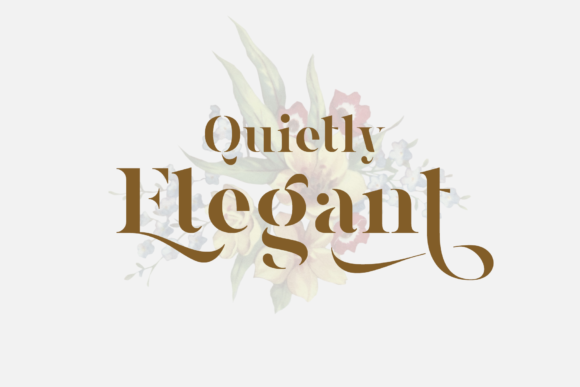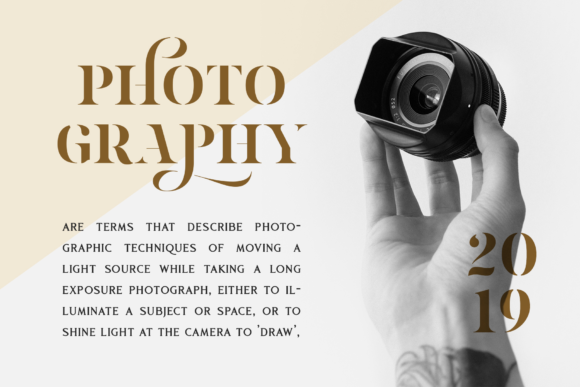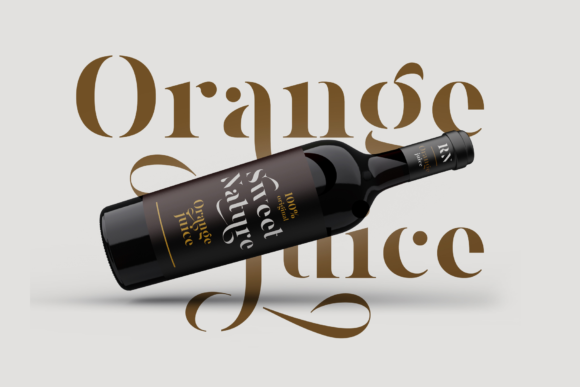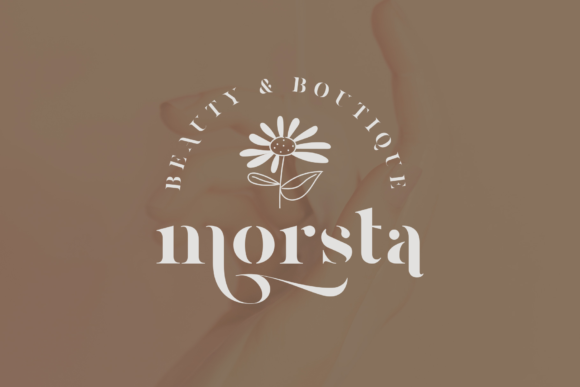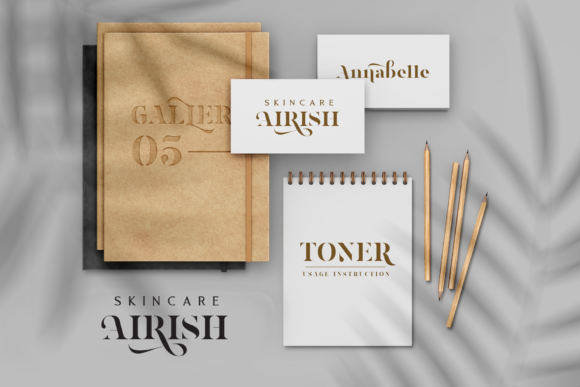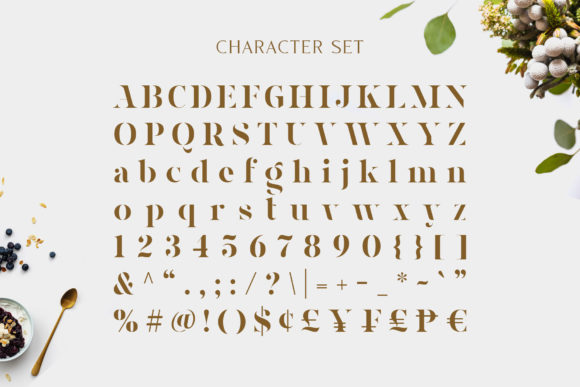
Introduction to Magnies Font
Have you ever stared at a blank canvas, feeling the pressure to create something truly remarkable, only to be inspired by the simplest of things? For designers, those moments are what drive us to push the boundaries of creativity. And what better way to spark that magic than with a stunning font that elevates any design idea to new heights?
Enter the Magnies Font – a serendipitous find that will transport your creative project from ordinary to extraordinary. With its incredibly sweet and gorgeous serif design, this font is the perfect addition to any designer’s toolkit, offering a unique charm that will leave a lasting impression.
Key Features of Magnies Font
- Unique, hand-drawn style that adds a personal touch to any design, making it an ideal choice for creative projects.
Honest Review: Magnies Font
I recently had the opportunity to work with the Magnies Font, and I must say it’s been a game-changer for my creative projects. The first thing I noticed was the high quality of the font, which is perfect for any design resource.
As a designer, I appreciate the attention to detail that has gone into creating this font. It’s clear that the creators have put a lot of thought into making it a versatile design resource that can be used for a wide range of creative projects.
My only criticism is that the font selection is a bit limited ⚠️, but this is a minor issue considering the quality and versatility of the font.
Overall, I’m really impressed with the Magnies Font and would highly recommend it to anyone looking for a high-quality font for their design project. It’s definitely a valuable addition to any design resource library.
Getting the Most Out of Magnies Font
Experiment with different font sizes, colors, and styles to achieve the desired effect. You can also combine the Magnies Font with other design elements to create a unique and eye-catching design.
What makes the Magnies Font a high-quality design resource?
The Magnies Font is a high-quality design resource due to its unique and creative design, making it perfect for various design projects, including branding, logos, and packaging design. Its high-quality design ensures that it will look great in any size or resolution, making it a valuable addition to any design library.